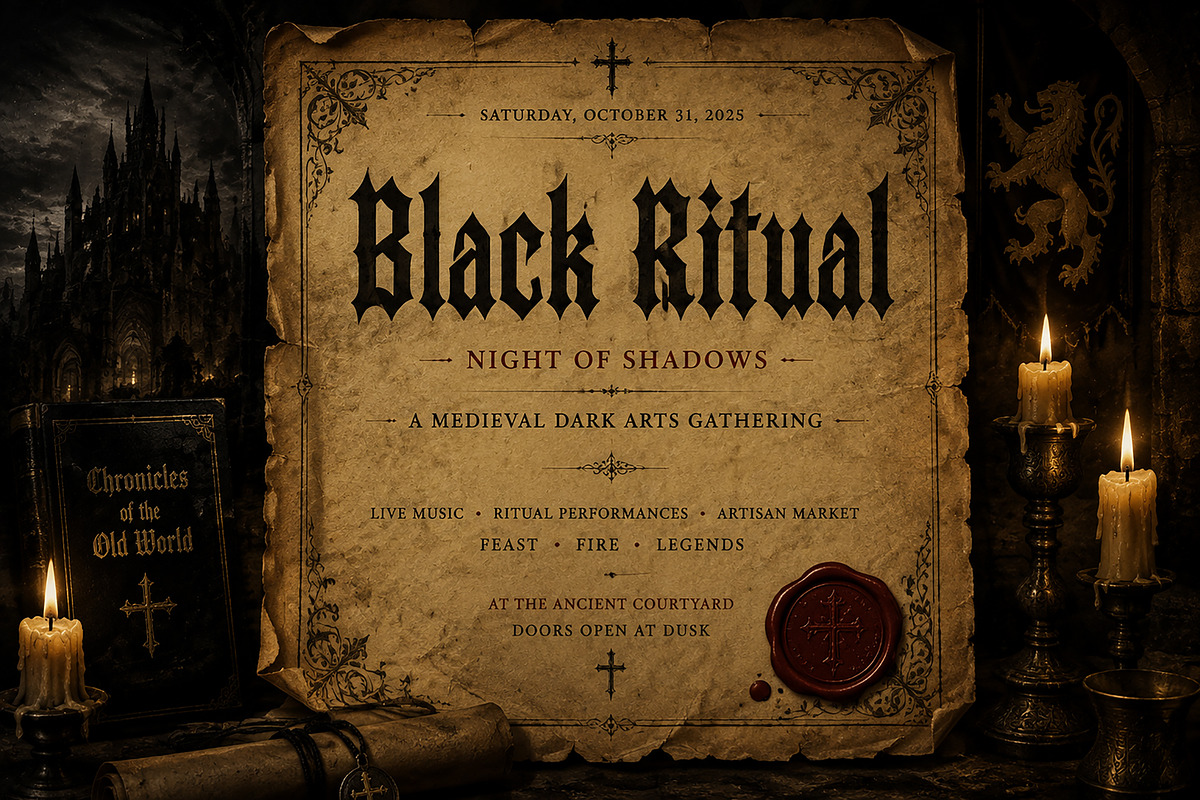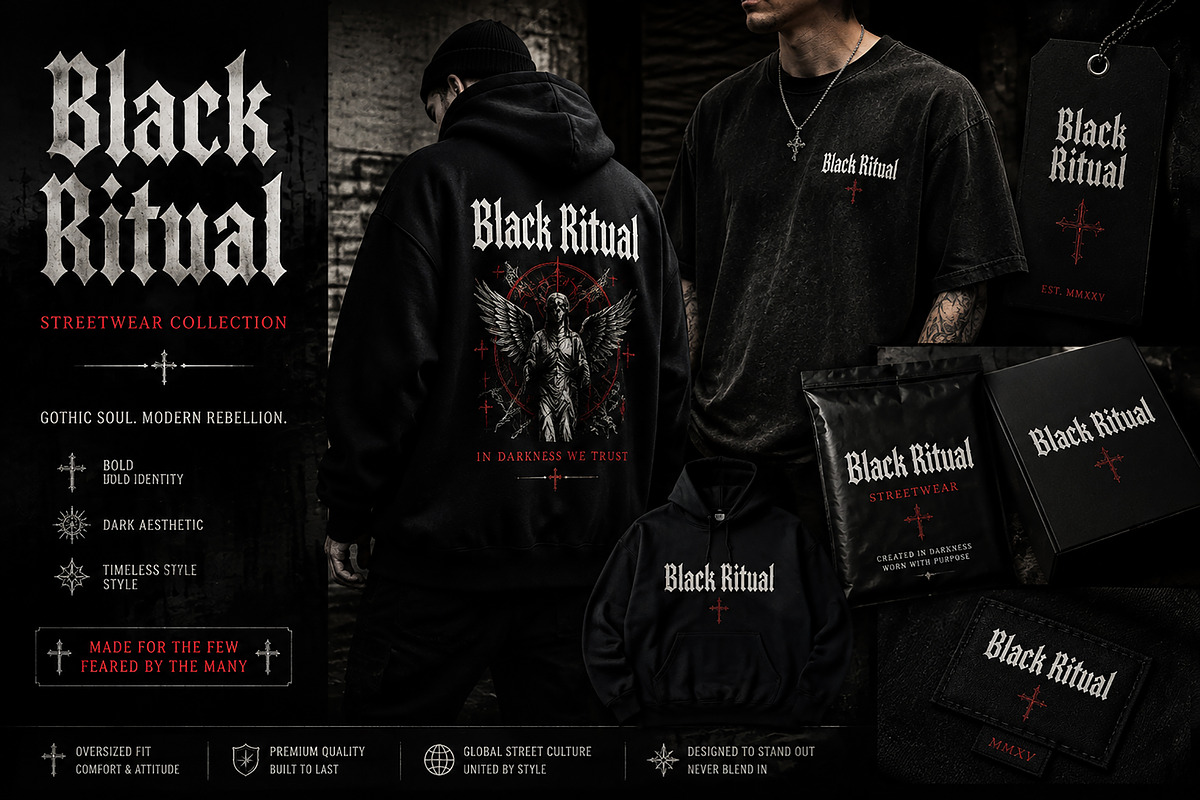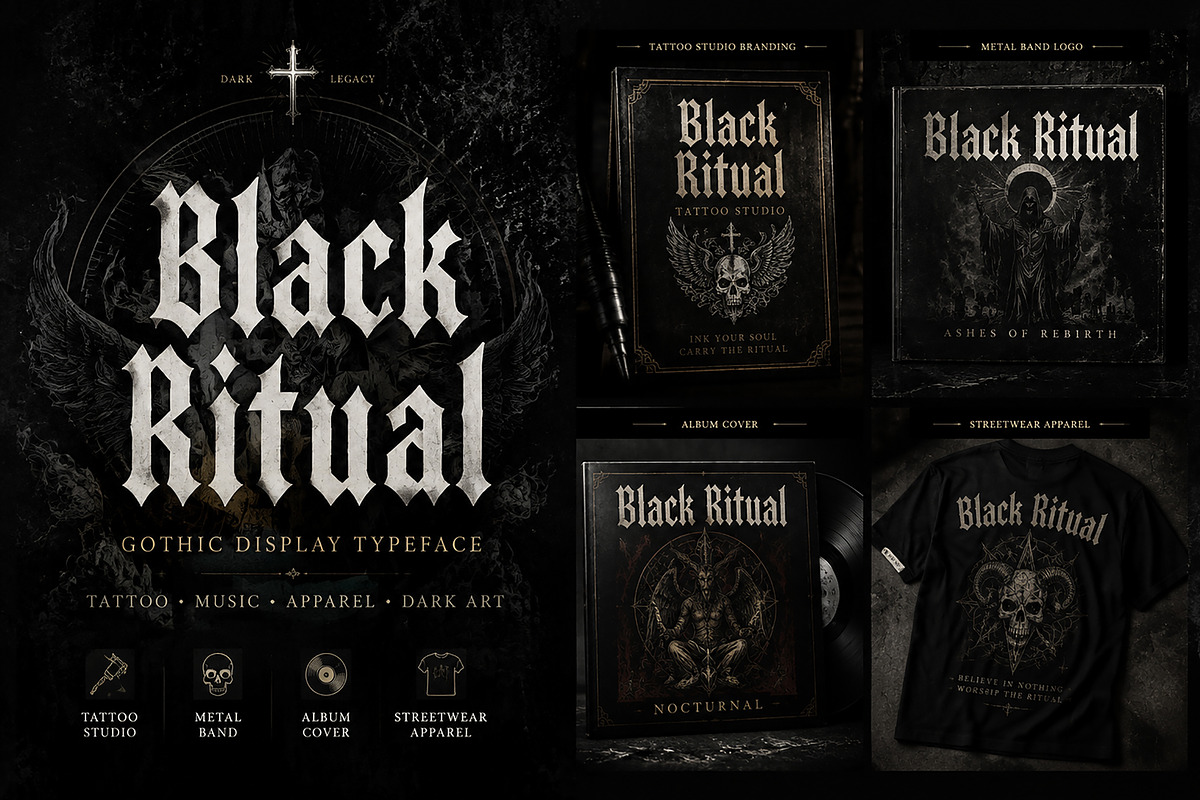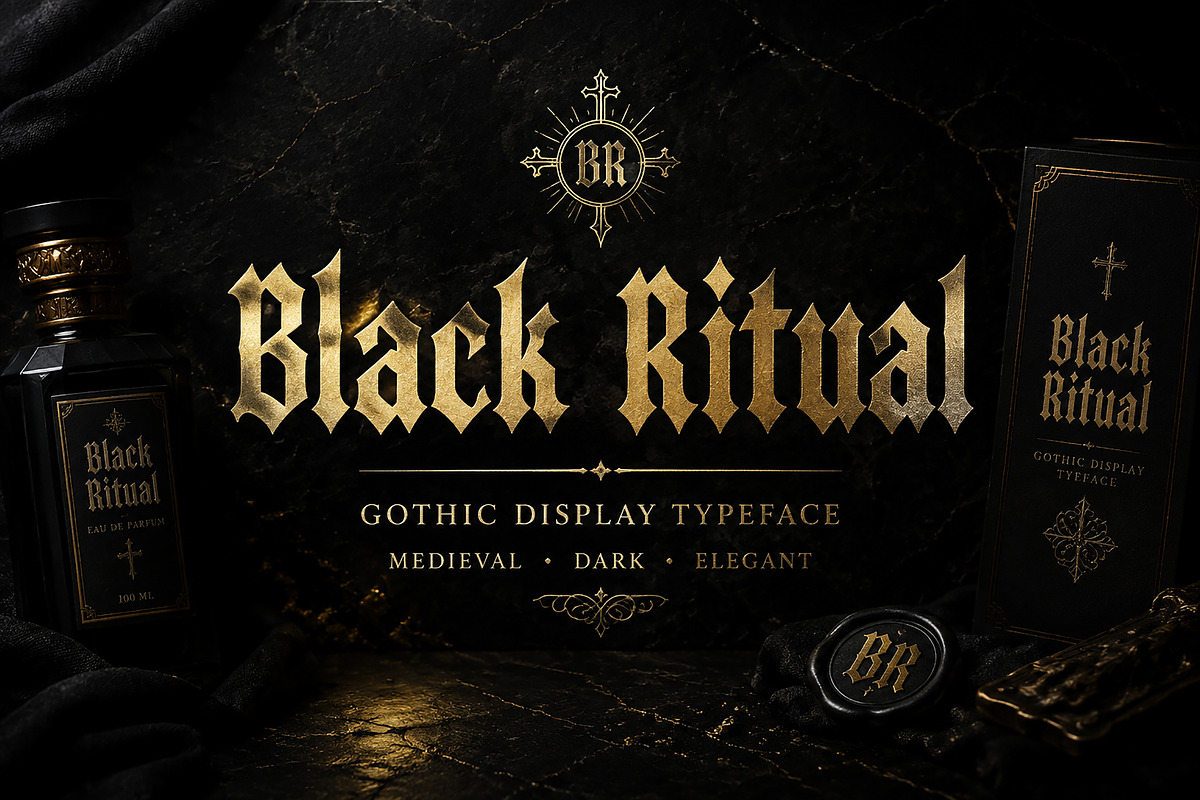
Black Ritual – Gothic Blackletter
Black Ritual – Gothic Blackletter Display Font
Black Ritual is a powerful Gothic Blackletter display typeface inspired by medieval aesthetics, dark luxury branding, tattoo culture, metal music, and vintage typography. Designed with sharp traditional blackletter forms and a dramatic personality, this font brings a bold and mysterious atmosphere to every design project.
Perfect for creating striking logos, apparel designs, album covers, tattoo branding, posters, book covers, labels, packaging, and luxury dark-themed visuals.
Black Ritual combines an ancient medieval feeling with a modern premium style, making it a perfect choice for designers looking for a unique gothic display font with strong visual impact.
✓ Gothic Logo Design
✓ Tattoo Studio Branding
✓ Metal Band Logos
✓ Album Covers
✓ Streetwear & Clothing Design
✓ Vintage Posters
✓ Book Covers
✓ Dark Luxury Branding
✓ Product Packaging
✓ Event Flyers
✓ Label Design
✓ Medieval & Horror Themes
Product Features:
✓ Gothic Blackletter Display Typeface
✓ Strong Medieval Inspired Design
✓ Bold and Elegant Letterforms
✓ Perfect for Branding & Headlines
✓ High-Impact Display Font Style
Black Ritual Font
Usage Ideas:
Create powerful designs with a dark and premium identity. Black Ritual works beautifully for brands, music projects, fashion labels, tattoo artwork, posters, and creative projects that need a strong gothic presence.